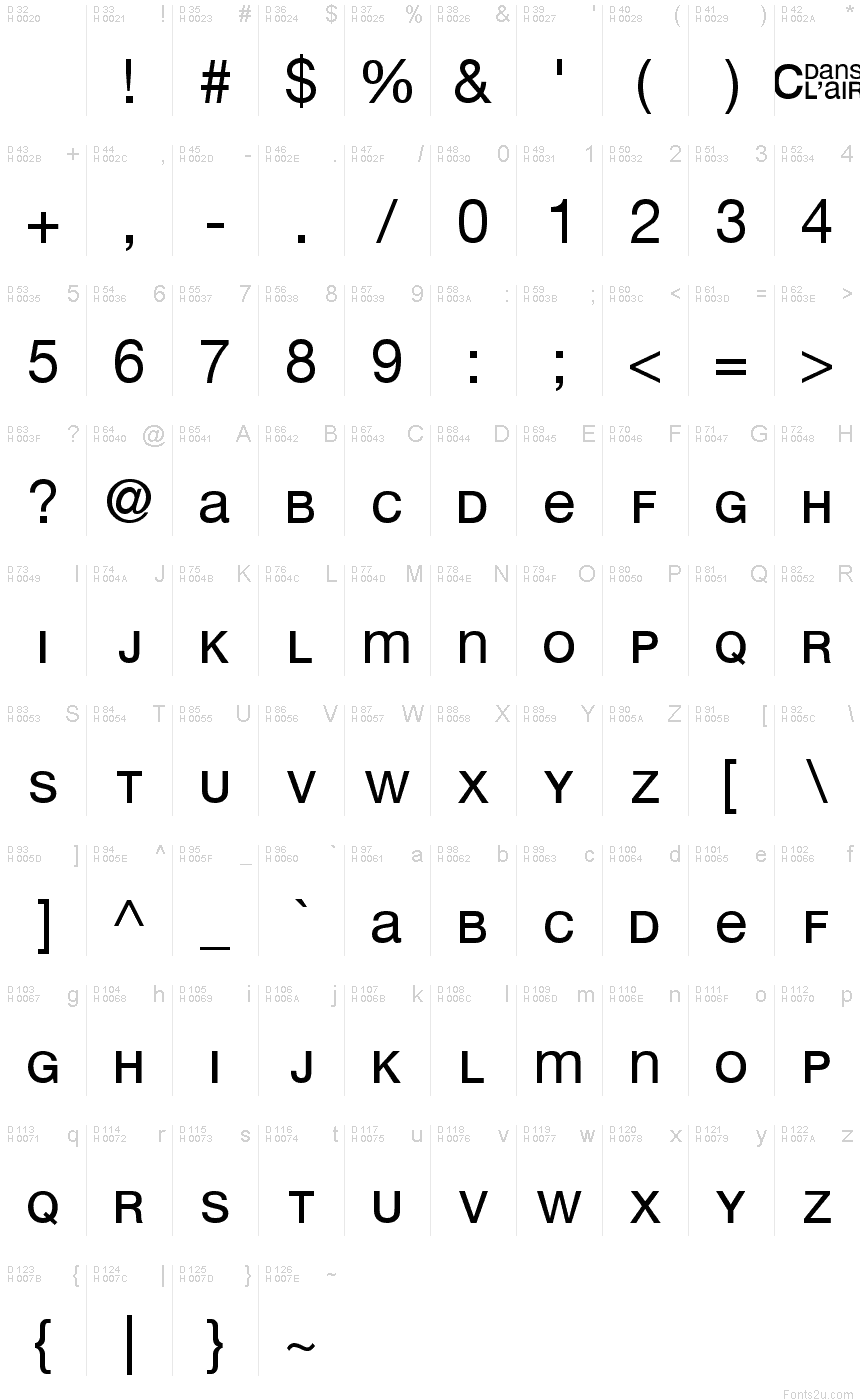
C Dans L’air Regular Font
C Dans L’air Regular Font is commonly used for tasks such as printing t-shirts and creating playing cards. As a result, it has gained popularity for its unique features.
And he releases it through variety foundry for the primary time. This has taken the basics of alcubierre typeface.